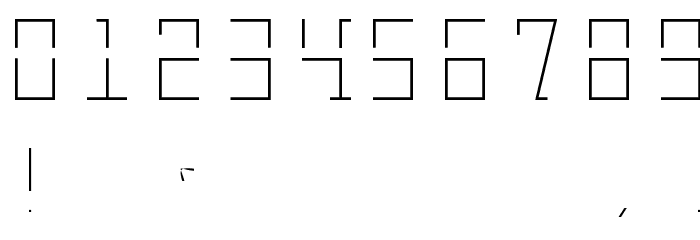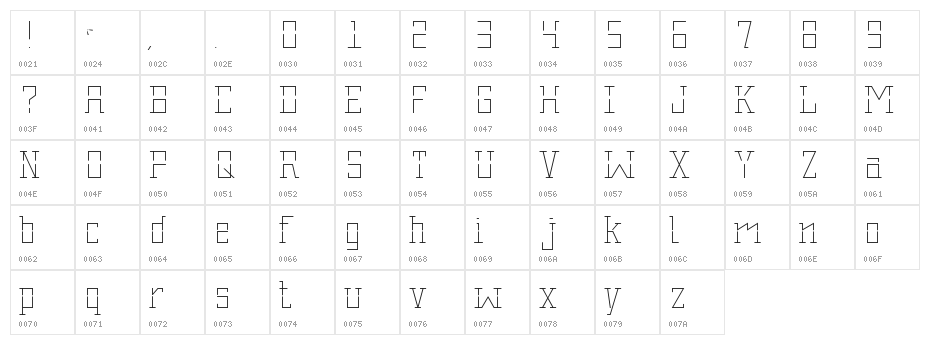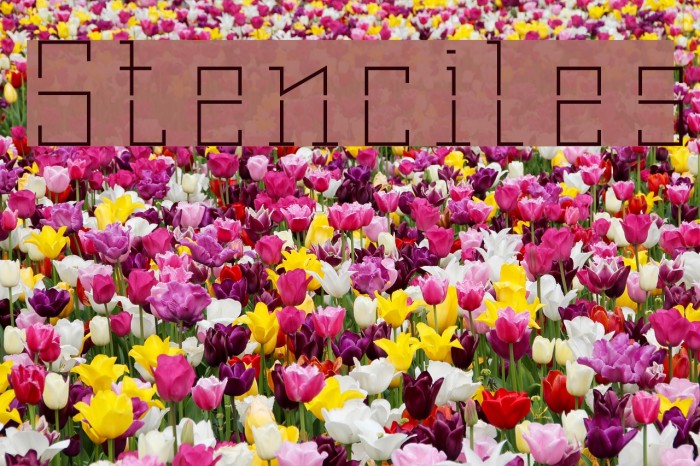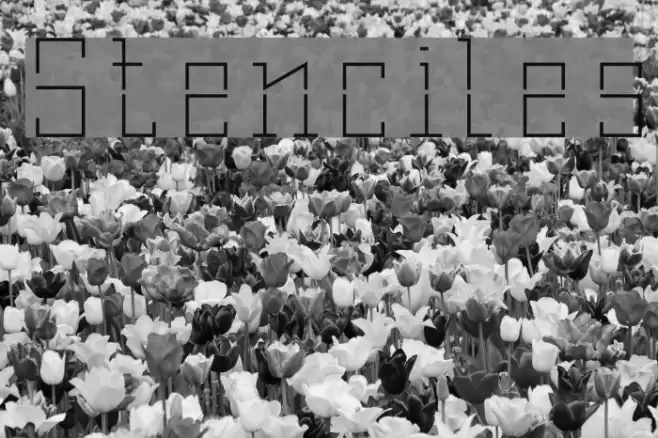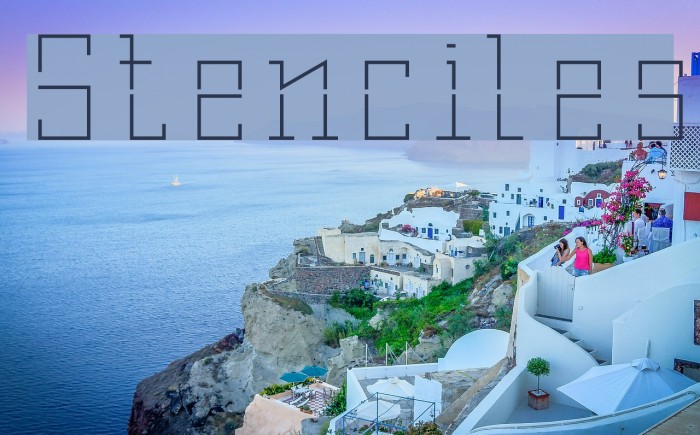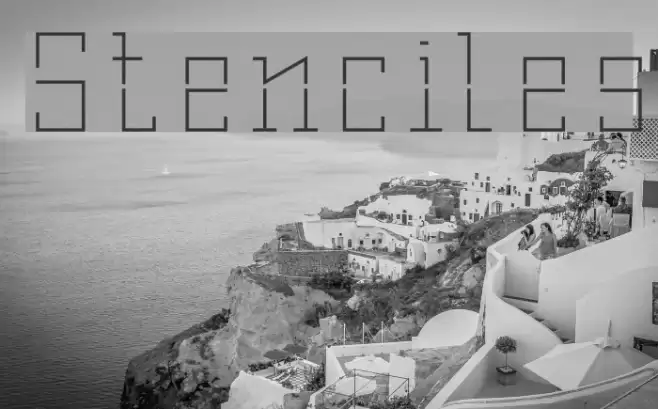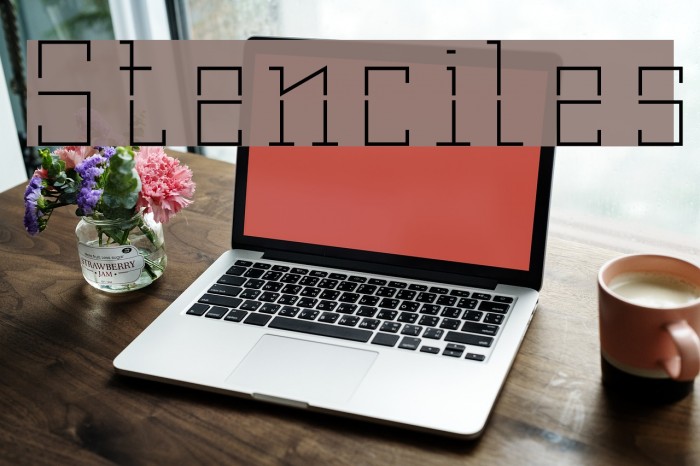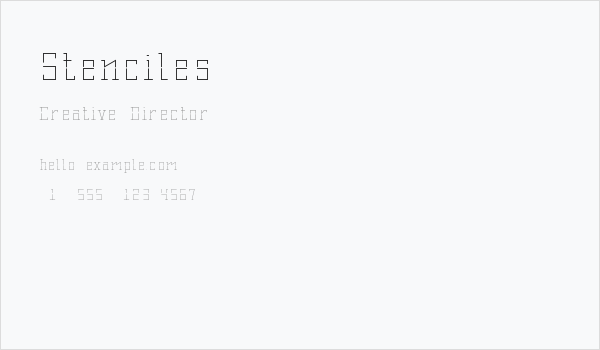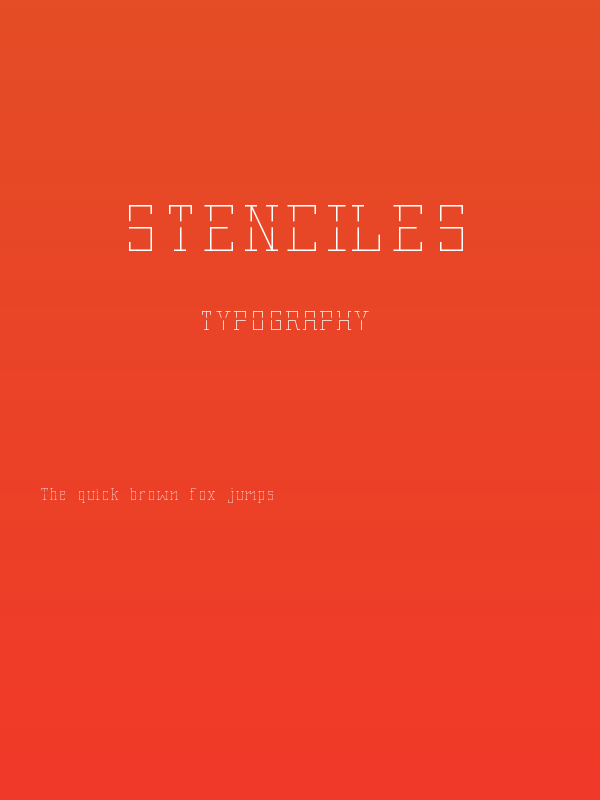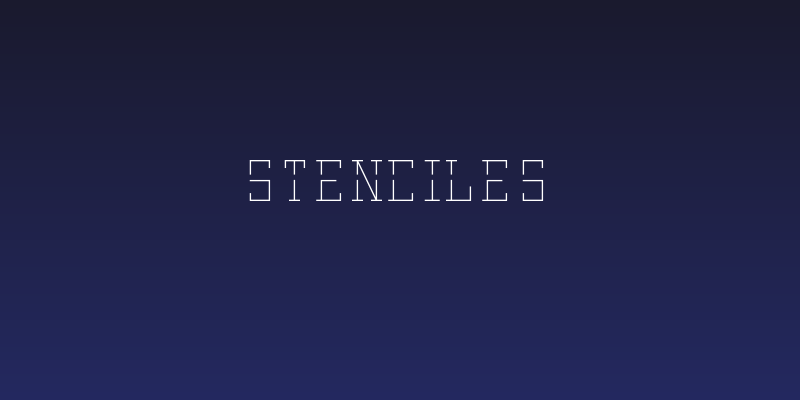
Stenciles Font
Stenciles Description
This font features a distinctive stencil design with a geometric and mechanical appearance. Each character is composed of straight lines and right angles, creating a structured and industrial look. The uppercase and lowercase letters maintain a consistent height, contributing to a uniform and balanced aesthetic. The numbers and special characters follow the same design principles, ensuring cohesion across all elements. The font's open spaces and breaks within the characters enhance its readability while maintaining the stencil style. This design is ideal for projects that require a modern and technical feel.
| Proposed Projects | Ideal for technical manuals, industrial-themed posters, and modern branding projects. |